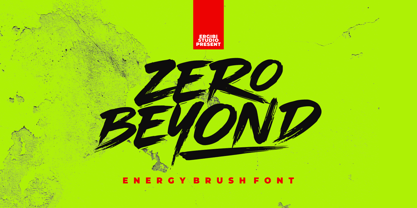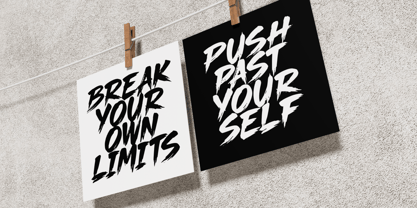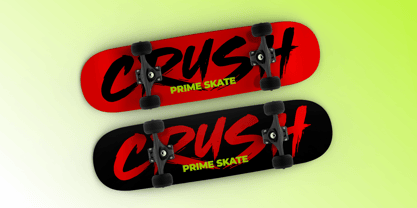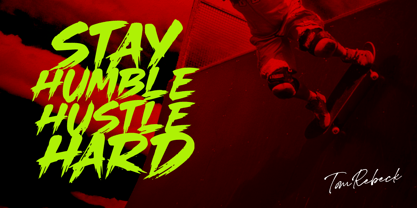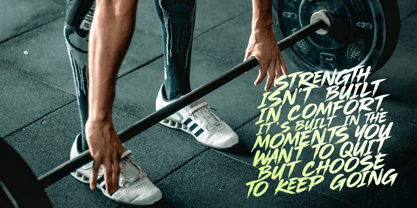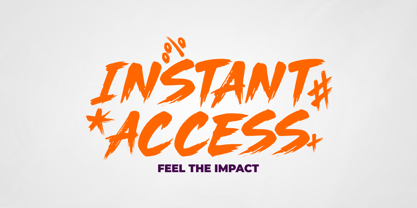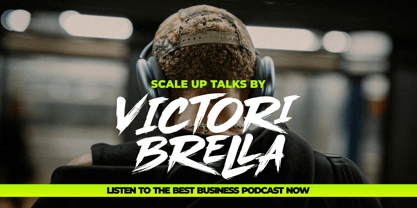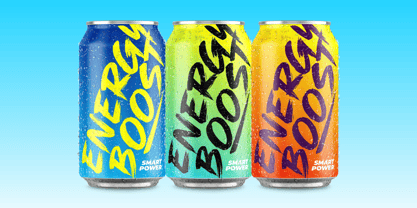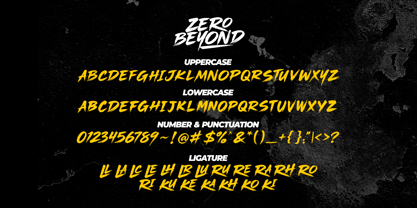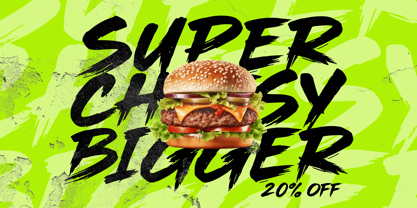
Zero Beyond
by Ergibi Studio
The Zero Beyond Font Family was designed by Riyadh Rahman and published by Ergibi Studio. Zero Beyond contains 1 styles. More about this family
Zero Beyond is a high-energy brush font designed to deliver a bold, raw, and unstoppable visual impact. Each stroke feels fast and spontaneous, capturing the intensity of hand-painted motion with expressive, dynamic character shapes. Its rough textures and imperfect edges add an edgy, modern feel that instantly grabs attention. Perfect for posters, streetwear branding, covers, and eye-catching promotional designs, Zero Beyond brings a strong urban vibe with a creative punch. It’s made for those who want to break limits and stand out beyond the ordinary. if you have any questions, don’t hesitate to contact us Ergibi Studio